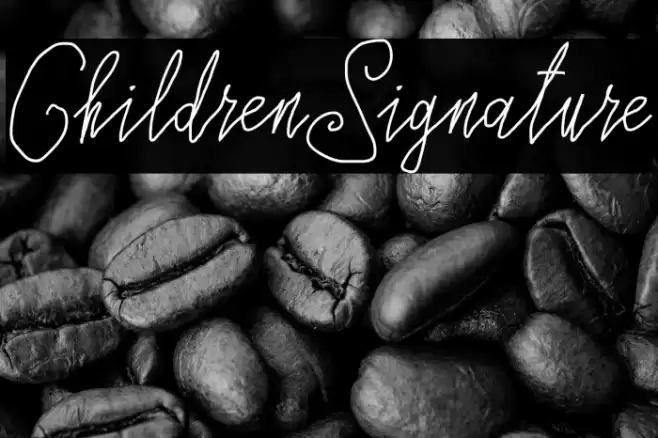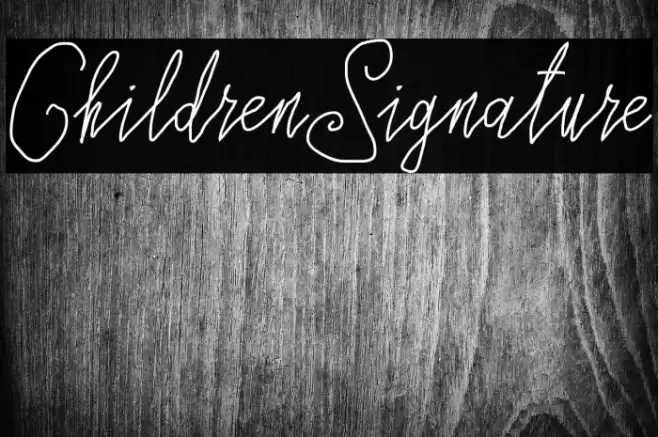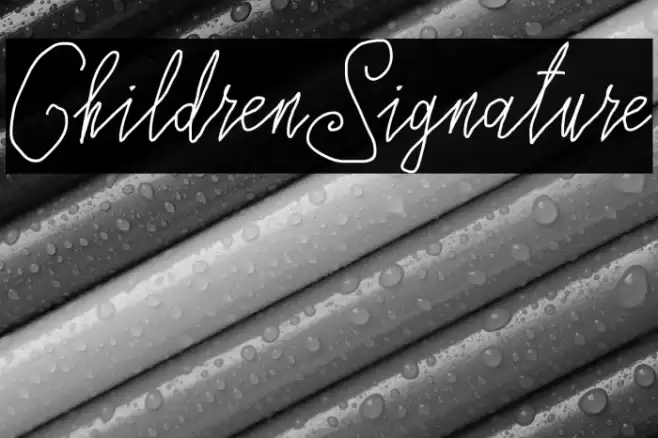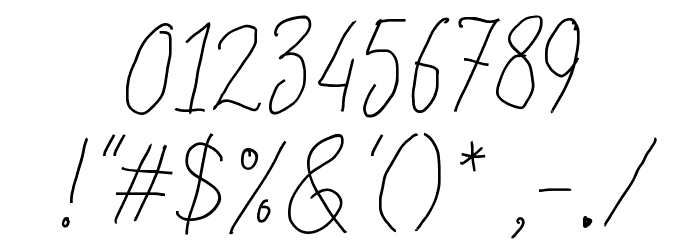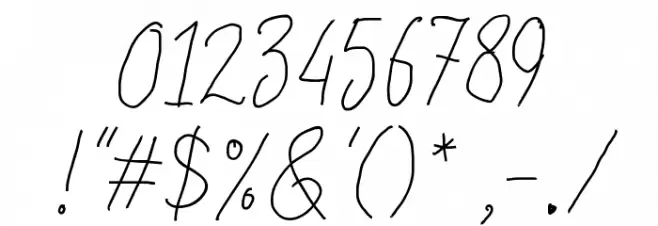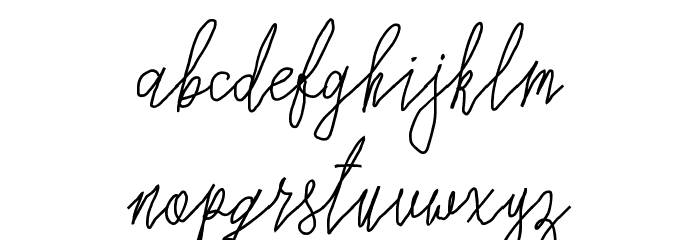
ChildrenSignature Font
ChildrenSignature Description
This font exudes a playful and whimsical charm, reminiscent of a child's handwriting. The letters are elegantly connected, creating a fluid and continuous script that flows effortlessly across the page. Each character is uniquely crafted with slight variations, adding a personal and informal touch. The uppercase letters stand tall with a slight slant, while the lowercase letters maintain a consistent height, enhancing readability. The numbers are clear and distinct, complementing the overall style. Special characters are thoughtfully designed to match the font's playful nature, making it versatile for various creative projects.
A playful, handwritten script font with a whimsical and fluid style from Regular fonts.
- Proposed Projects: Ideal for children's book covers, playful invitations, greeting cards, and creative branding projects.
- Overall Style: Playful, Whimsical
- Use Case: Headlines, Creative projects, Invitations